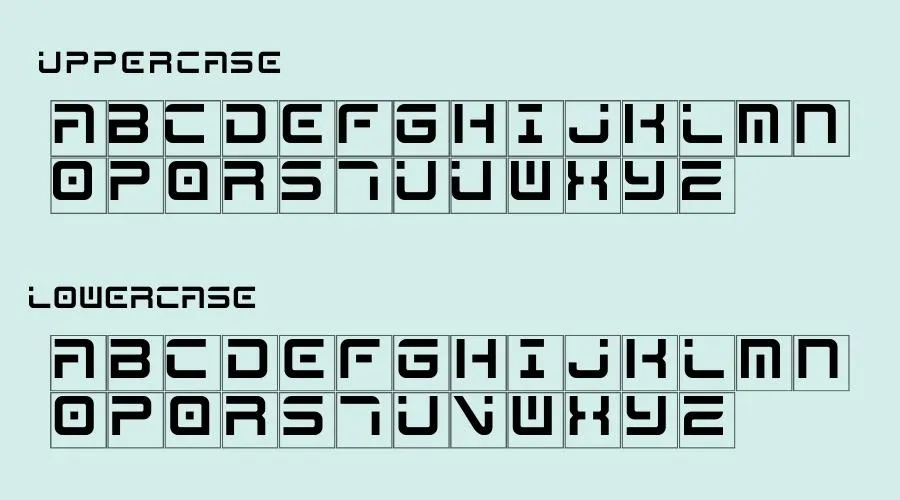
Mega By Shk Dezign Font
About Mega By Shk Dezign Font
The Mega By Shk dezign Font is an attractive techno texture family that was invented by a typographic developer known as the name of Shylock. The sub-family of this font family is Regular and the format of this typeface is TTF (TrueType), which is available for MAC and also for PC.
You can easily compare it with neon font and make attractive designs. You should choose it for all your fun methods and procedures.